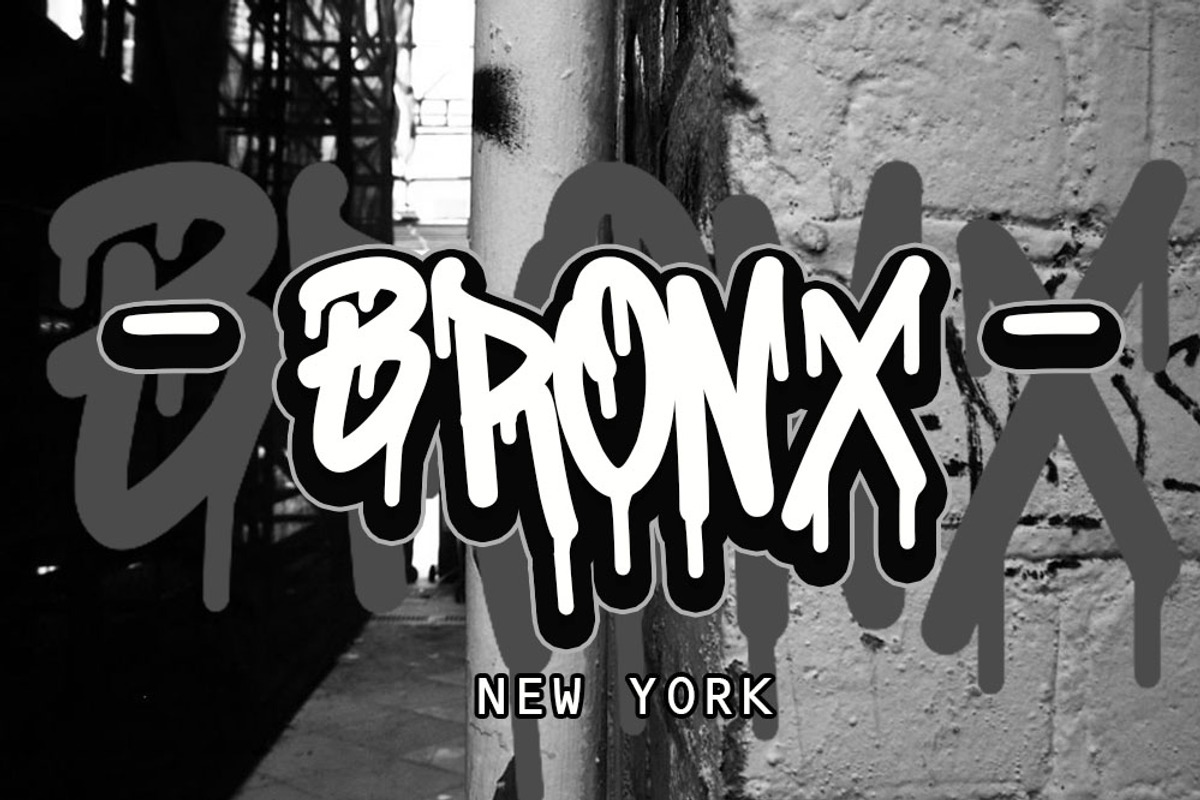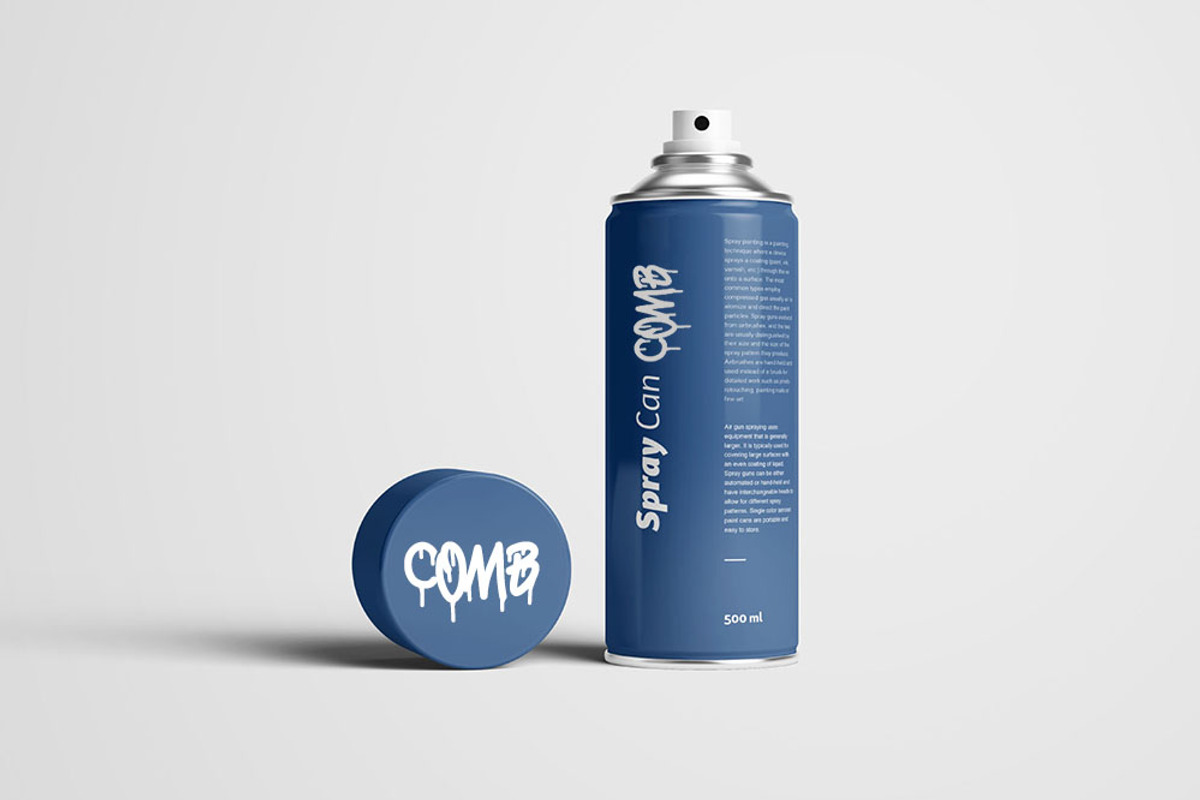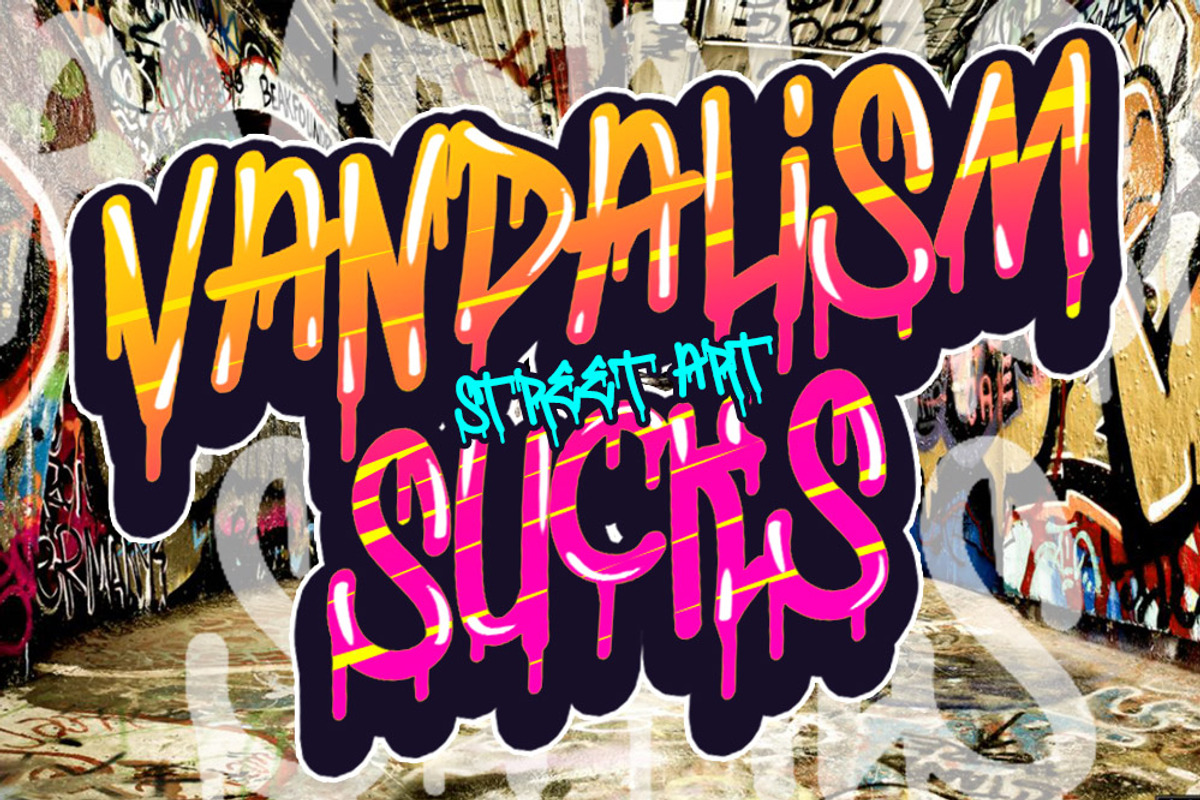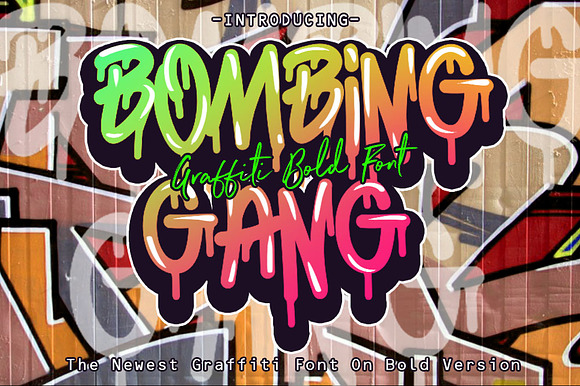
BOMBING GANG GRAFFITI BOLD FONT
Hello Everyone, introducing the latest bold graffiti font. Like my previous graffiti font, this font is also designed so that users can use it more easily and make graffiti designs easier. This font is available in format, OTF, TTF. and has features including, uppercase, lowcase, numeral & punctuations. all can make graffiti designs as they like with this font. Enjoy it. Thanks.